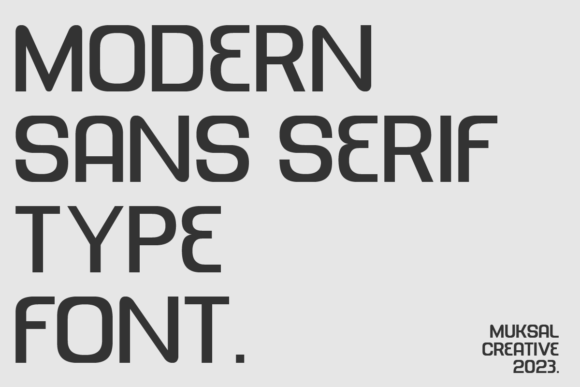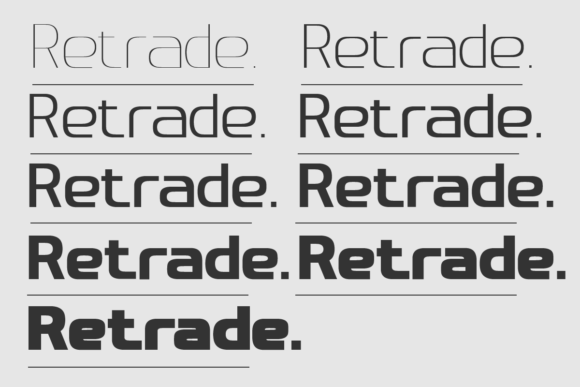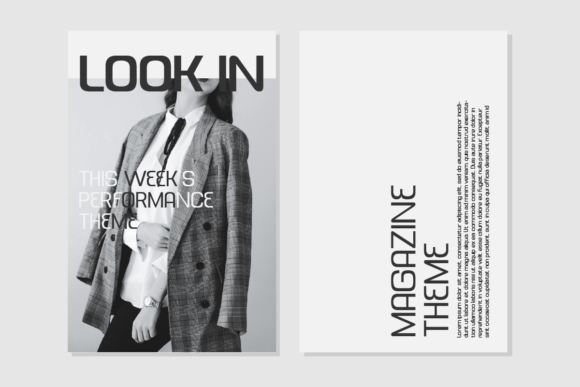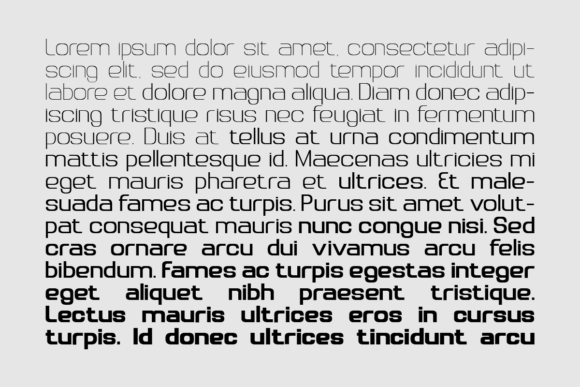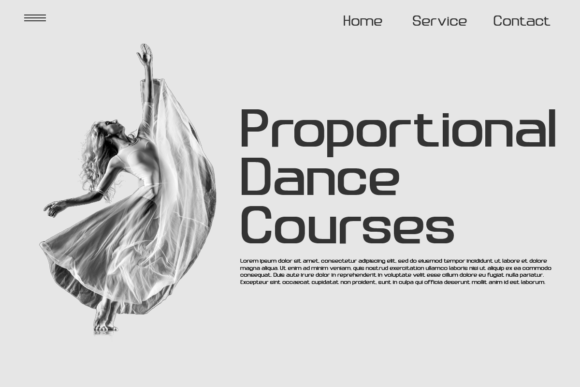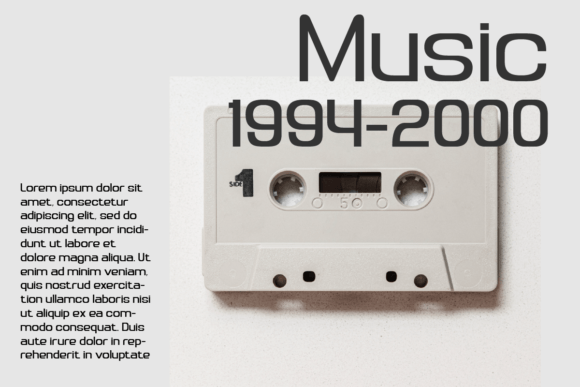
Introduction to Retrade Font
Do you remember that moment when you finally landed the perfect design concept, but it all fell flat because of the wrong font? You envisioned a sleek and modern aesthetic, but the chosen font just didn’t cut it. That’s where Retrade Font comes in – a game-changing sans-serif font that will elevate your design projects to the next level.
As a designer, you know the importance of choosing the right font to convey your message and enhance your creative vision. With Retrade Font, you’ll have access to a high-quality design resource that’s perfect for a wide range of applications, from minimalist branding to crisp, professional presentations.
Key Features of Retrade Font
- High-quality design resource for creative projects, ideal for graphic designers and digital artists.
- Designed with a modern and sleek aesthetic, perfect for use in logos, typography, and branding materials.
Honest Review: Retrade Font
What works well is the clean and modern aesthetic of the font. It’s perfect for designs that need a bit of a minimalist touch. The transparent background makes it easy to work with and customize to fit your design needs. ✨
One of the things I appreciate about Retrade Font is that it’s a high-quality font that doesn’t look like it’s missing any details. The lines are crisp and the letters are well-defined, making it a great choice for projects that require a bit of sophistication.
Here are some of the key features that I think make Retrade Font stand out:
- Clean and modern aesthetic
Overall, I’m really impressed with Retrade Font. It’s a great addition to any design library and I think it’s definitely worth checking out.
⚠️ One thing to keep in mind is that the font may not be suitable for every project. If you’re looking for something with a bit more flair or personality, you may want to consider a different option. But for clean and modern designs, Retrade Font is a great choice.
Tips for Getting the Most Out of Retrade Font
For best results, use Retrade Font on a transparent background. This will allow the font to blend seamlessly with your design. You can also experiment with different font sizes and colors to create a unique look.
Retrade Font is perfect for creative projects that require a high-quality, free design resource. It’s great for logos, branding, and marketing materials. You can also use it for presentations, reports, and other documents that require a professional look.
Q: Does the Retrade Font have a transparent background?
No, the Retrade Font does not have a transparent background. It’s designed as a solid font, which makes it ideal for use on various backgrounds, including images and videos.